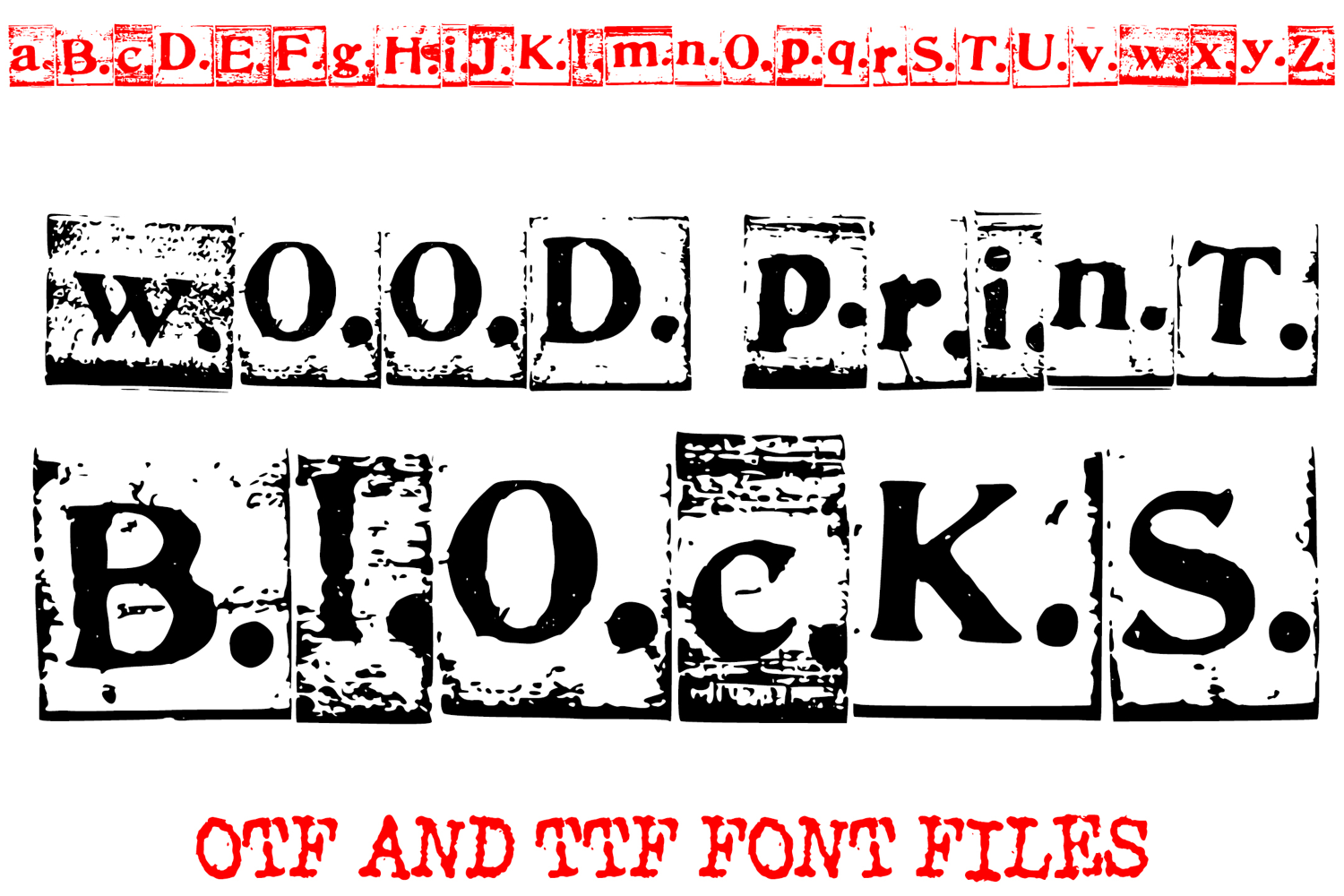
Step back in time and infuse your designs with the raw, artisanal charm of traditional craftsmanship with Wood Print Blocks Font! This unique typeface captures the authentic character of real wood printing blocks, bringing a genuine vintage and distressed aesthetic to all your creative projects.
Each character is meticulously designed to replicate the beautiful imperfections, ink bleeds, and textured edges inherent in traditional letterpress and woodblock printing. This isn't just a font; it's a piece of history, exuding a warm, handcrafted feel that is impossible to achieve with standard digital fonts. Perfect for rustic branding, heritage-inspired logos, antique-look posters, folk art designs, and unique packaging.
Wood Print Blocks Font is ideal for headlines, titles, and short impactful phrases where you want to evoke a sense of heritage, ruggedness, or genuine artistry. Its distinct style makes it perfect for vintage-themed events, craft fair promotions, bespoke product labels, and storytelling graphics.